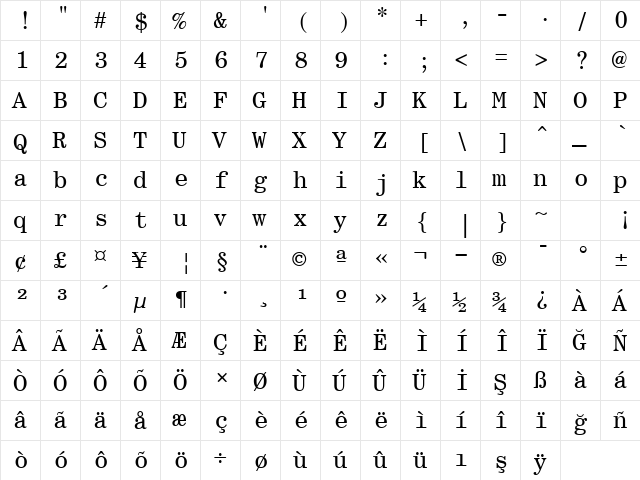
00649 Regular Font Preview
00649 Regular
Design Context for 00649 Typeface
00649 is a composed and adaptable typeface that performs quietly and consistently across a wide range of design contexts.